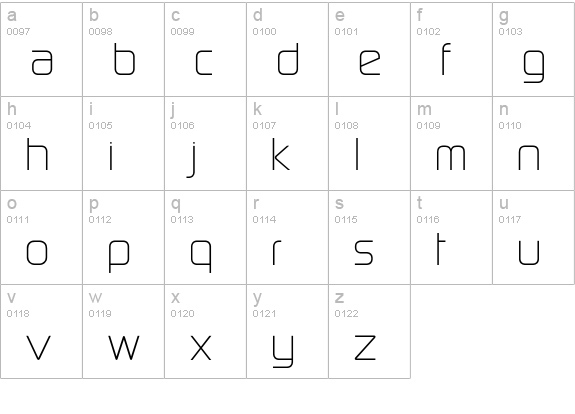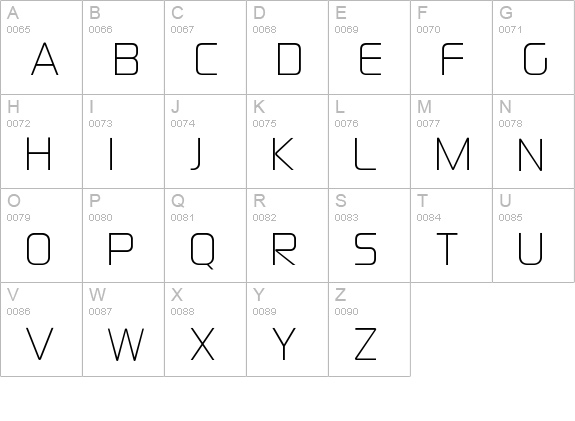
SolThin Font Details
Introducing SolThin font, a stunningly elegant typeface that effortlessly combines modern sophistication with a touch of grace. This exquisite font boasts slender, delicate letterforms that exude a sense of refinement and finesse. SolThin font is perfect for adding a touch of elegance to any design project. Whether you're creating invitations, branding materials, or editorial layouts, this font will elevate your work to new heights of sophistication. But what truly sets SolThin font apart is its availability as a free download. Yes, you read that correctly! This incredible font is freely accessible to all, allowing designers, creatives, and typography enthusiasts alike to enjoy its beauty without any limitations. Thanks to the generosity of FontsMarket.com, SolThin font can be easily obtained at no cost. Simply visit the website, browse their extensive collection, and locate SolThin font among the vast array of options. With just a few clicks, you'll have this remarkable typeface at your fingertips, ready to breathe life into your creative endeavors. Don't miss out on this rare opportunity to own a high-quality font that seamlessly merges elegance and accessibility. Download SolThin font today and watch your designs transform into works of art that capture attention and inspire awe.